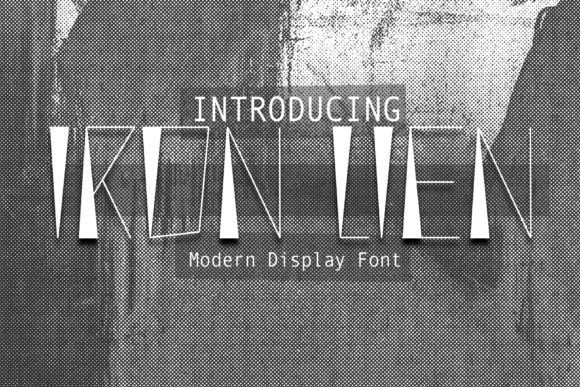
Iron Lien: A Display Font That Anchors Digital Presence
It started with a hero section—clean layout, bold image background, and that one stubborn headline that just wouldn’t land. I’d tried three sans serifs, two geometric fonts, even a subtle serif for contrast. Nothing clicked. Then I dropped Iron Lien into the headline field—and suddenly the whole section felt grounded, intentional, and unmistakably human. Not cold. Not flashy. Just strong in a way that invites attention without demanding it.
Iron Lien is a modern display font built for impact—not noise. Its letterforms carry weight without heaviness: tight apertures, confident stroke contrast, and subtly tapered terminals that add motion to static text. It’s not aggressive, but it doesn’t apologize either. You feel its presence before you fully read the words—a rare balance for digital interfaces where users scan in under two seconds.
I tested it across real layouts: a boutique online store’s seasonal banner, a coaching website’s “Start Your Journey” CTA, and a portfolio homepage’s project title cards. In each case, Iron Lien served as visual anchor—not decoration. It worked best where hierarchy needed reinforcement: hero headlines, section dividers, button labels (especially on dark backgrounds), and short brand statements like “Built for clarity” or “Designed to move.” It’s not meant for paragraphs, captions, or mobile navigation menus—but that’s exactly why it shines where it does belong.
Readability on mobile was surprisingly solid—even at 28px on a narrow viewport. The x-height is generous, spacing is open by default, and the uppercase-heavy aesthetic (it’s most expressive in all-caps or title case) actually helps legibility at smaller sizes when used sparingly. On image overlays? It held up beautifully against textured or gradient backgrounds, especially with a subtle text shadow or light stroke. No need for heavy outlines or opaque containers—just thoughtful contrast and breathing room.
What surprised me most was how quickly it shaped tone. A landing page for a sustainability-focused course kit went from “well-intentioned but vague” to “focused and capable” after swapping in Iron Lien for the main headline and module headers. Same copy. Same colors. Different energy. That’s the quiet power of a well-chosen display font: it doesn’t replace strategy—it clarifies it.
For pairing, I kept body copy clean and neutral: a versatile sans serif like Inter or a relaxed variable font like Manrope. No competing personalities—just complementary roles. Iron Lien leads; the body font listens and supports. I avoided pairing it with other high-contrast or geometric display fonts—too much tension. And while it *can* work alongside a warm serif for editorial accents (think blog headers or quote blocks), I found it most effective when given space to breathe beside simple, functional type.
In practice, I used Iron Lien for:
- A product landing page’s primary headline and feature card titles—reinforcing confidence in the solution
- A creative studio’s portfolio grid labels—adding distinction without clutter
- An online course sales page’s “What You’ll Gain” section headers—making outcomes feel tangible
- A campaign landing page’s countdown banner (“Launch in 3 Days”)—injecting urgency with elegance
- A digital brand kit’s cover slide and divider lines—establishing cohesion across templates
One note on usage: avoid stretching or distorting Iron Lien. Its strength comes from proportion and rhythm—not forced scale. I saw early versions where designers pushed it too wide or compressed it vertically, and the dynamism collapsed into stiffness. Let it sit at its natural width. Use tracking adjustments sparingly—tighten only for emphasis in large displays, loosen slightly for readability in mid-size headings.
It’s also worth remembering that Iron Lien isn’t trying to be everything. It’s not a text font. It’s not a script or handwritten alternative. It’s not a playful or quirky option. It’s a focused tool for moments that need authority, clarity, and forward momentum—especially in digital spaces where trust is earned in milliseconds.
If you’re building a site where tone matters as much as function—whether it’s a founder’s personal brand, a premium service landing page, or a curated shop’s seasonal campaign—Iron Lien earns its place not as decoration, but as design infrastructure. It’s the kind of display font that makes visitors pause, not because it shouts, but because it stands still—firm, clear, and quietly unforgettable.
And yes—it finally made that hero section work.